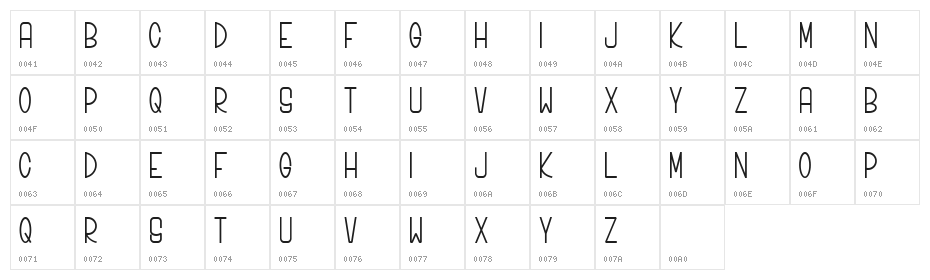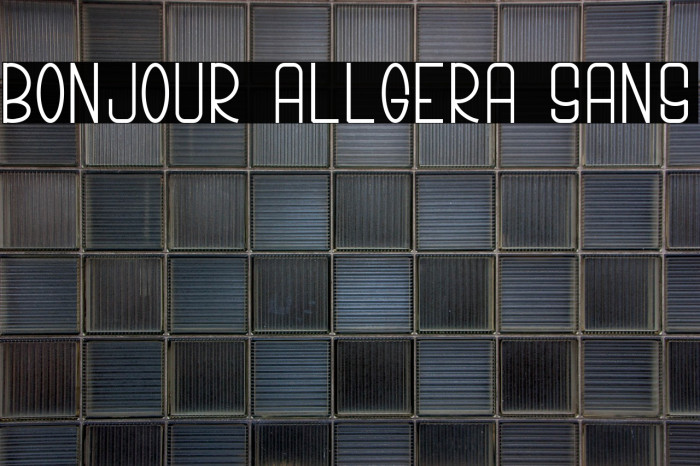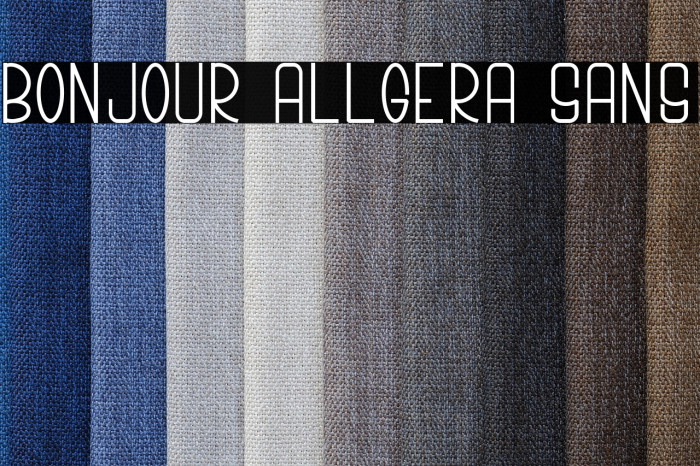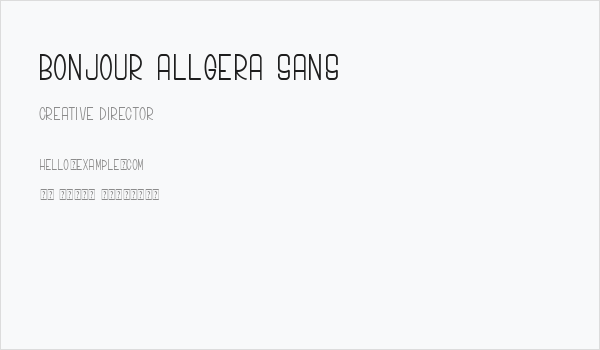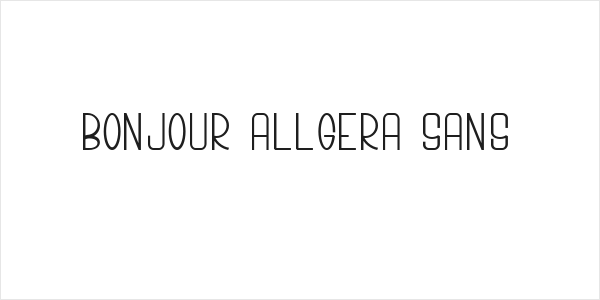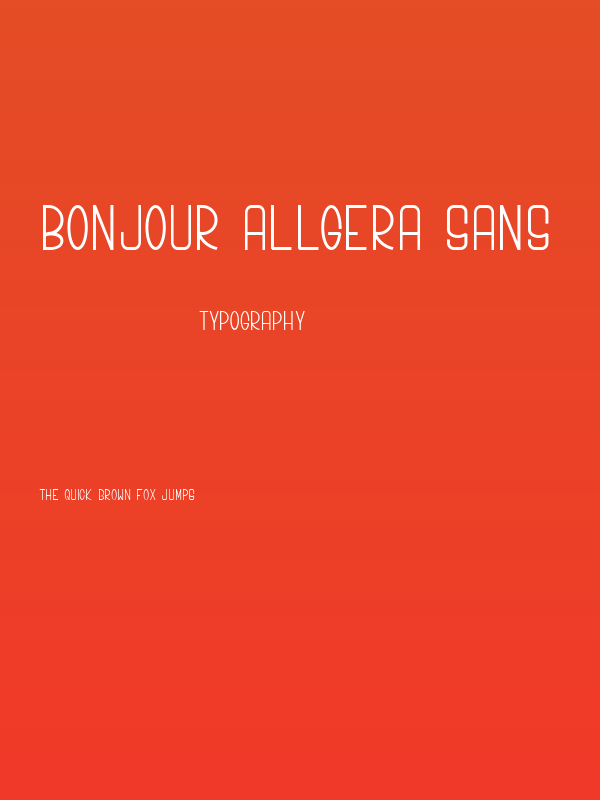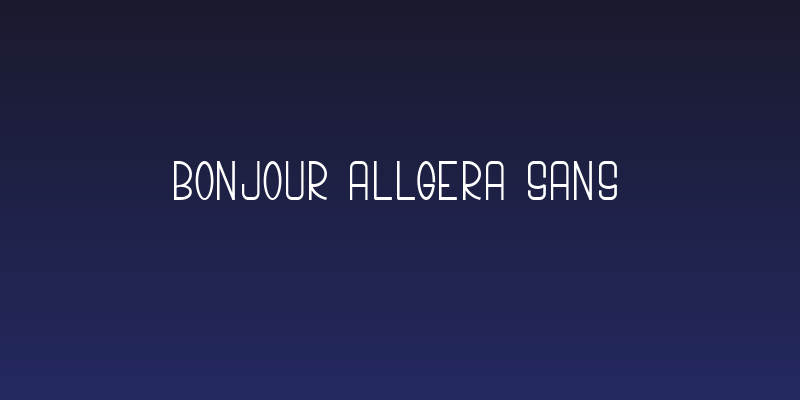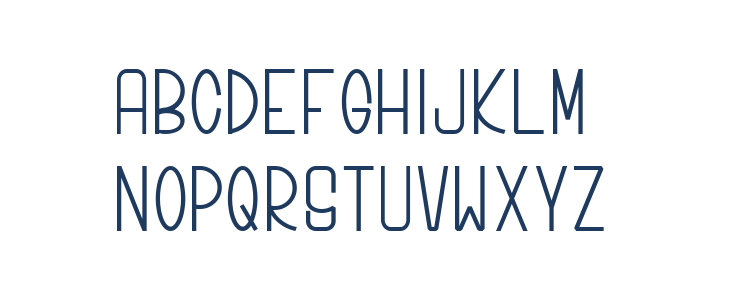
Bonjour Allgera Sans Font
Bonjour Allgera Sans Description
This font features a clean and modern sans-serif style with a geometric structure. The characters are tall and narrow, giving it a sleek and contemporary appearance. The uniform stroke width throughout the letters provides a consistent and harmonious look. The font's design is minimalistic, with a focus on clarity and readability. The rounded edges of certain letters add a touch of softness, balancing the overall sharpness of the design. This font is versatile, suitable for both digital and print media, and can be used effectively in various design projects.
| Proposed Projects | Ideal for branding, advertising, web design, and editorial layouts where a clean and modern look is desired. |